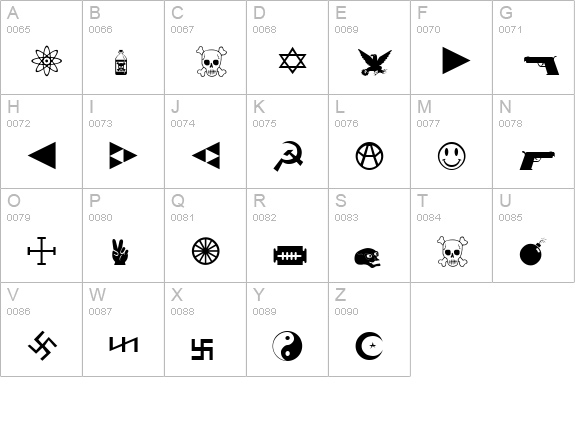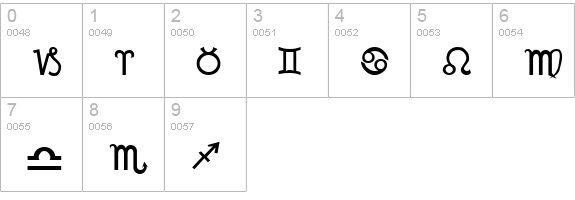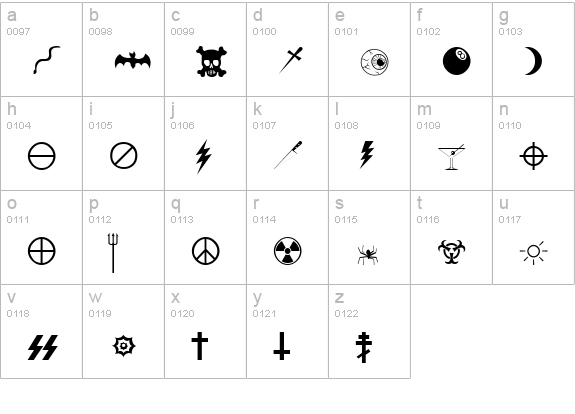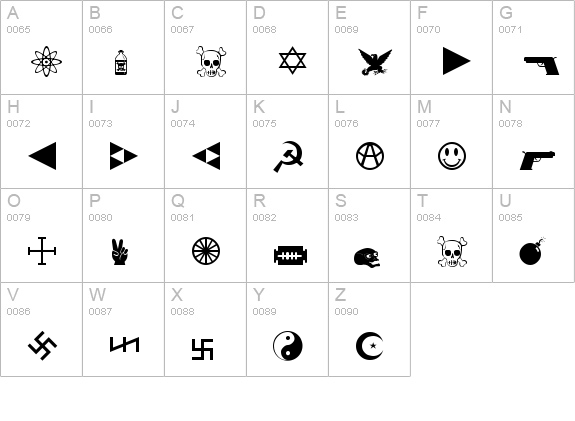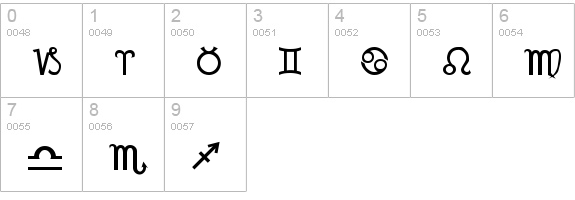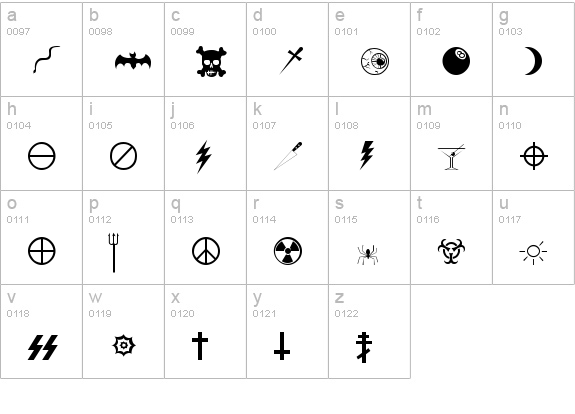
Mortbats Font Details
Introducing Mortbats, a captivating and versatile font that combines elegance with a touch of whimsy. This unique typeface features intricate details and decorative elements that make it perfect for adding a special touch to your projects. Whether you're designing invitations, branding materials, or social media graphics, Mortbats is sure to make a lasting impression. What sets Mortbats apart is not only its stunning design, but also the fact that it is completely free to download. That's right - you can access this beautiful font at no cost at FontsMarket.com. With Mortbats in your font library, the creative possibilities are endless. Give your designs a fresh and distinctive look with Mortbats today!